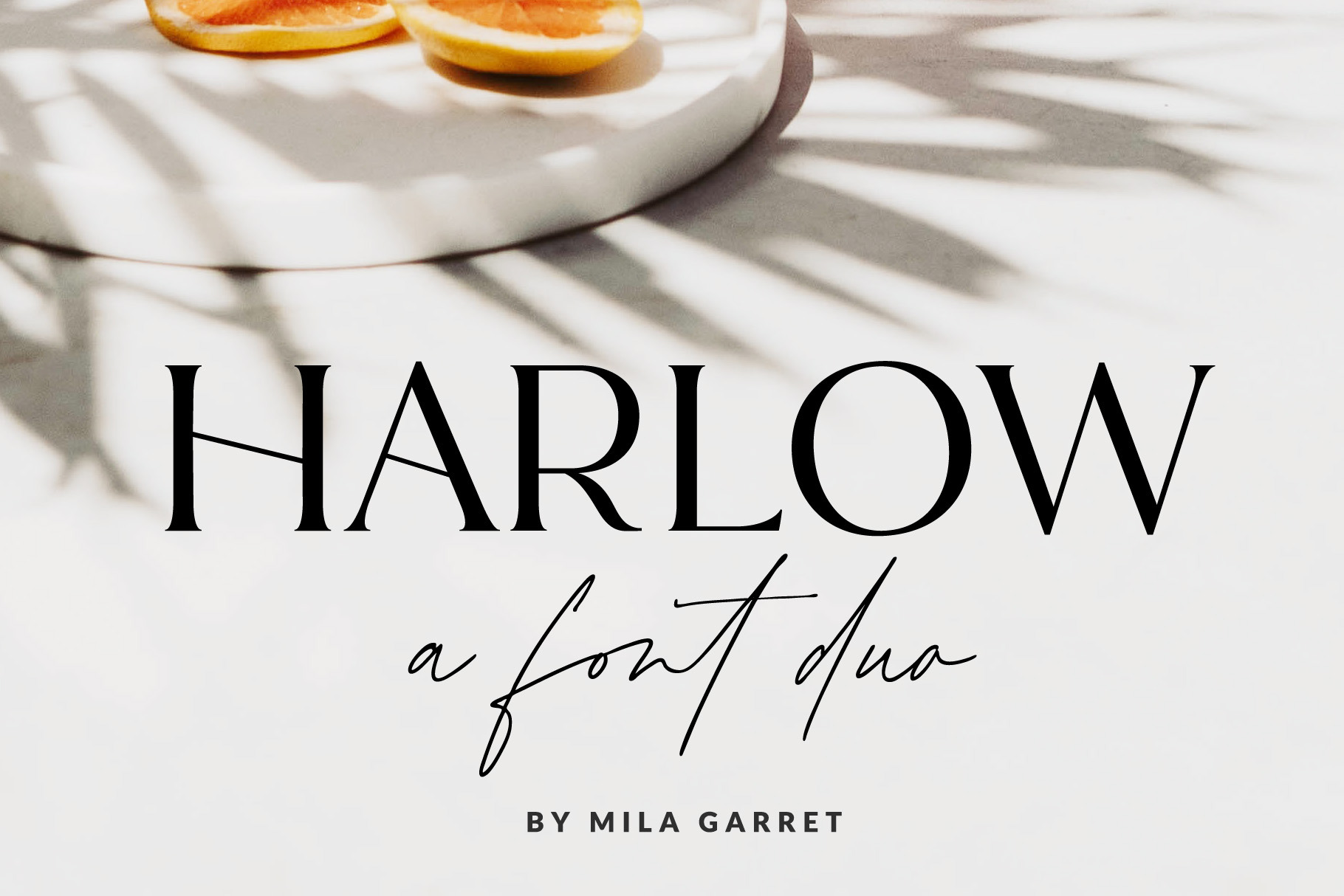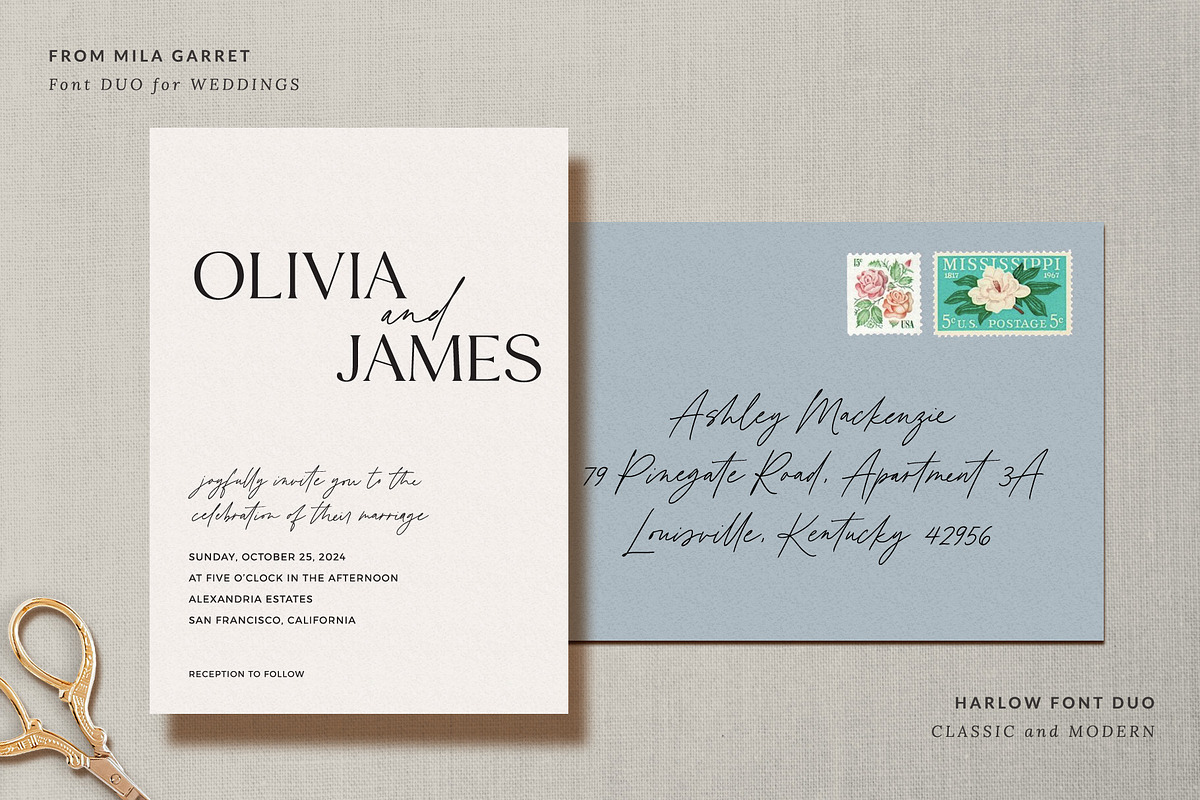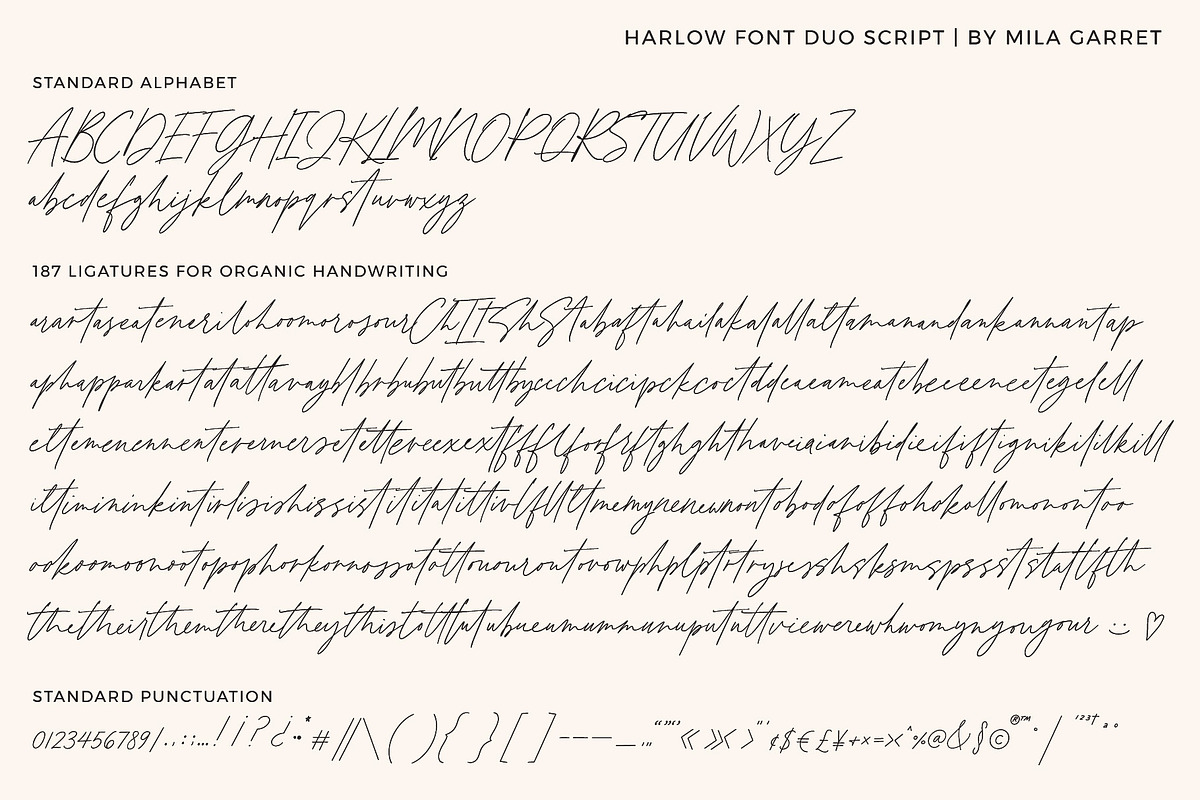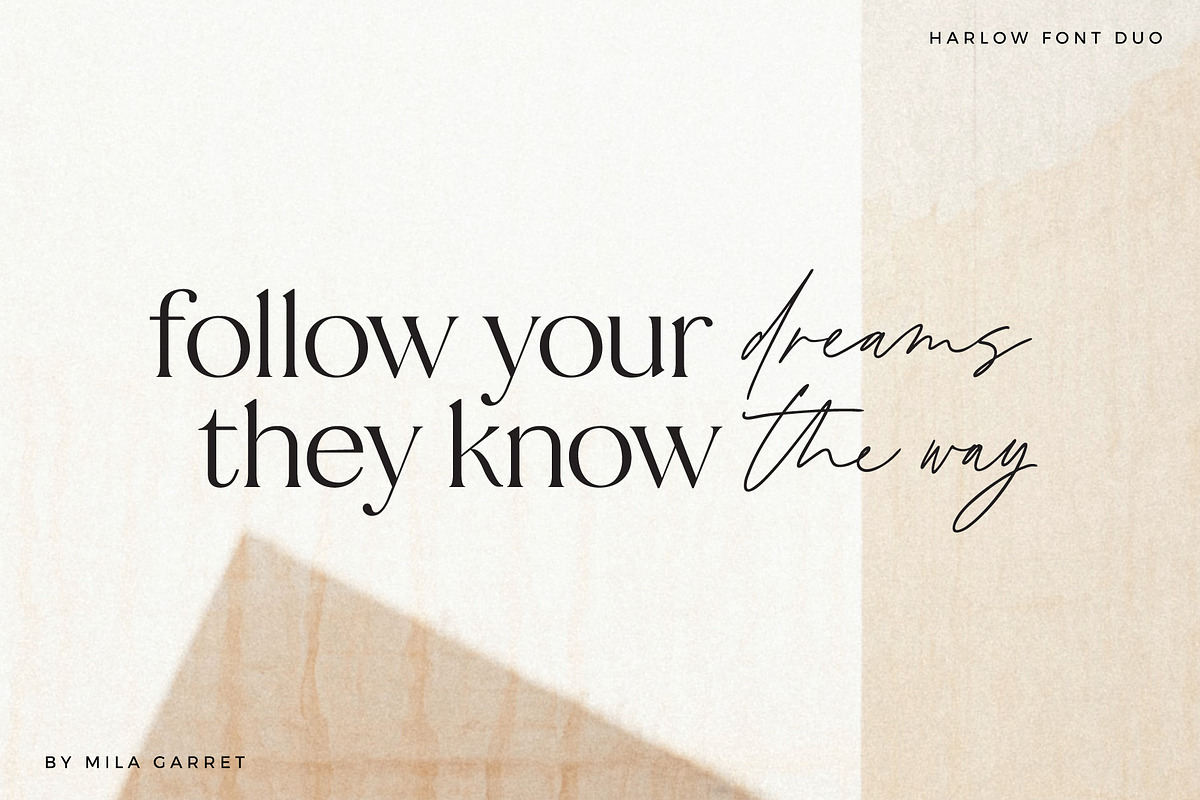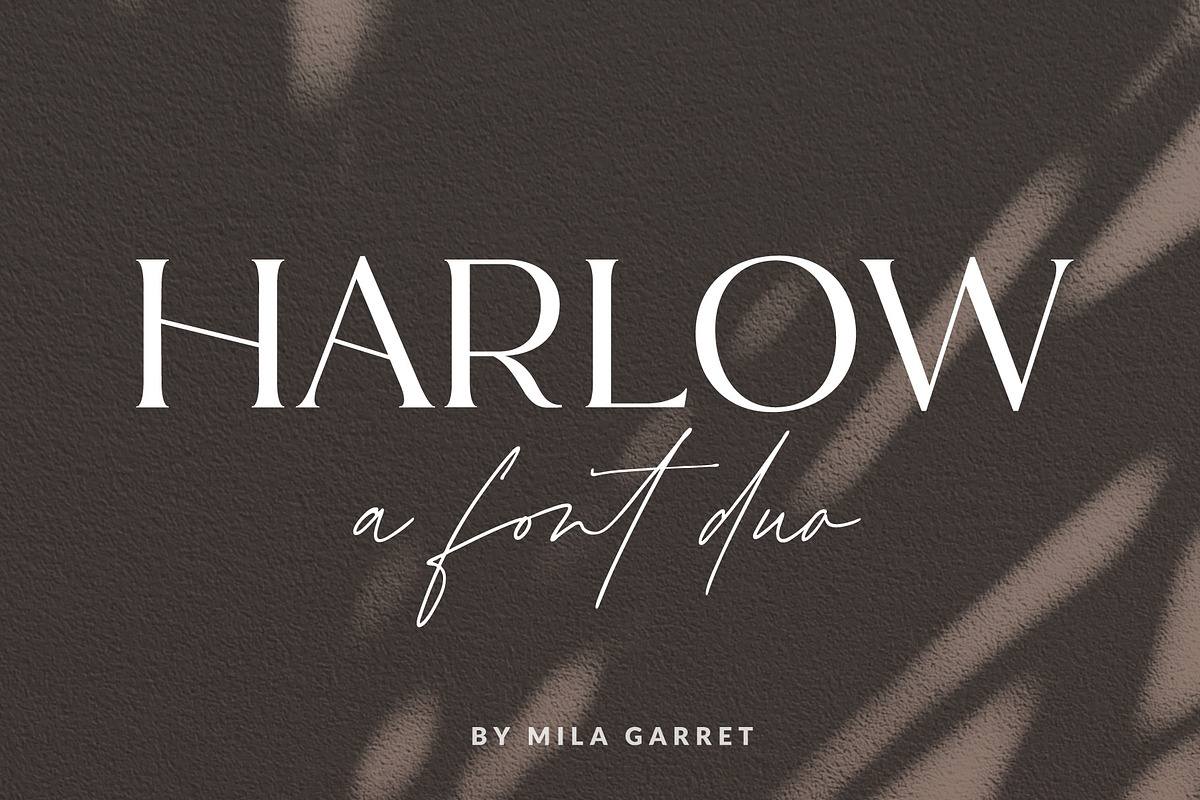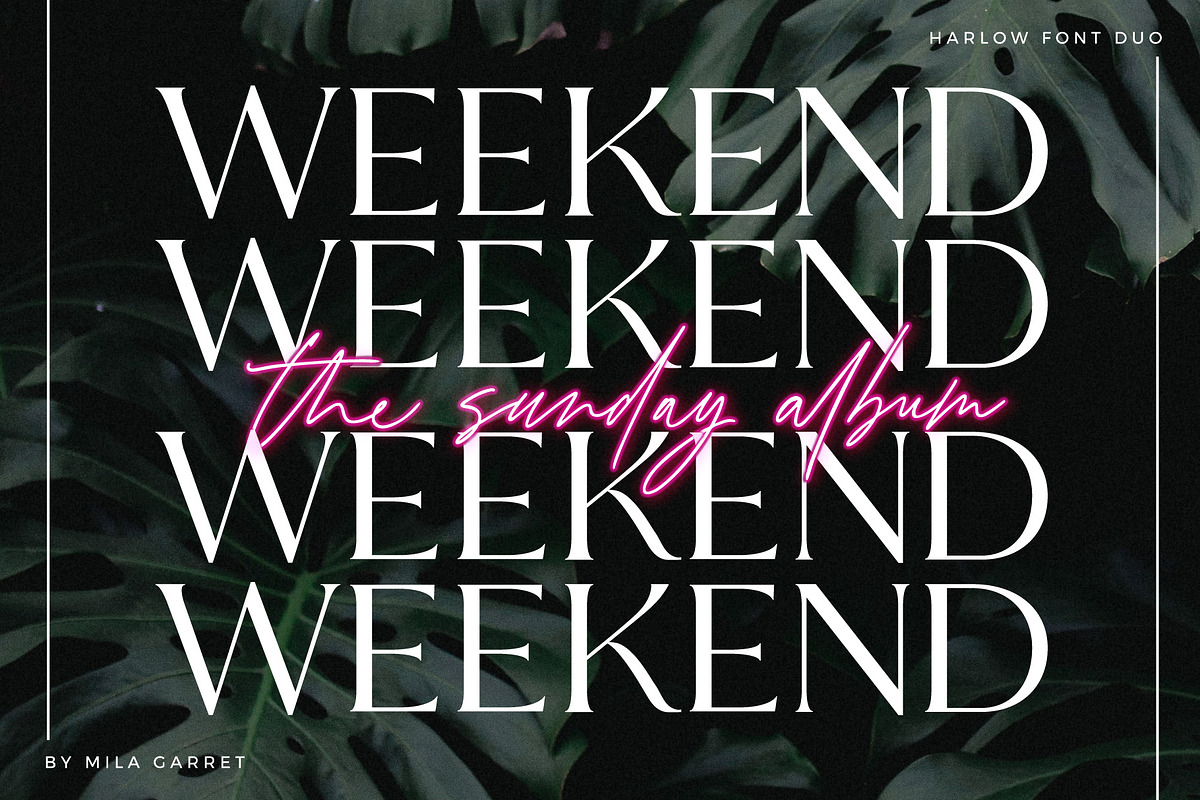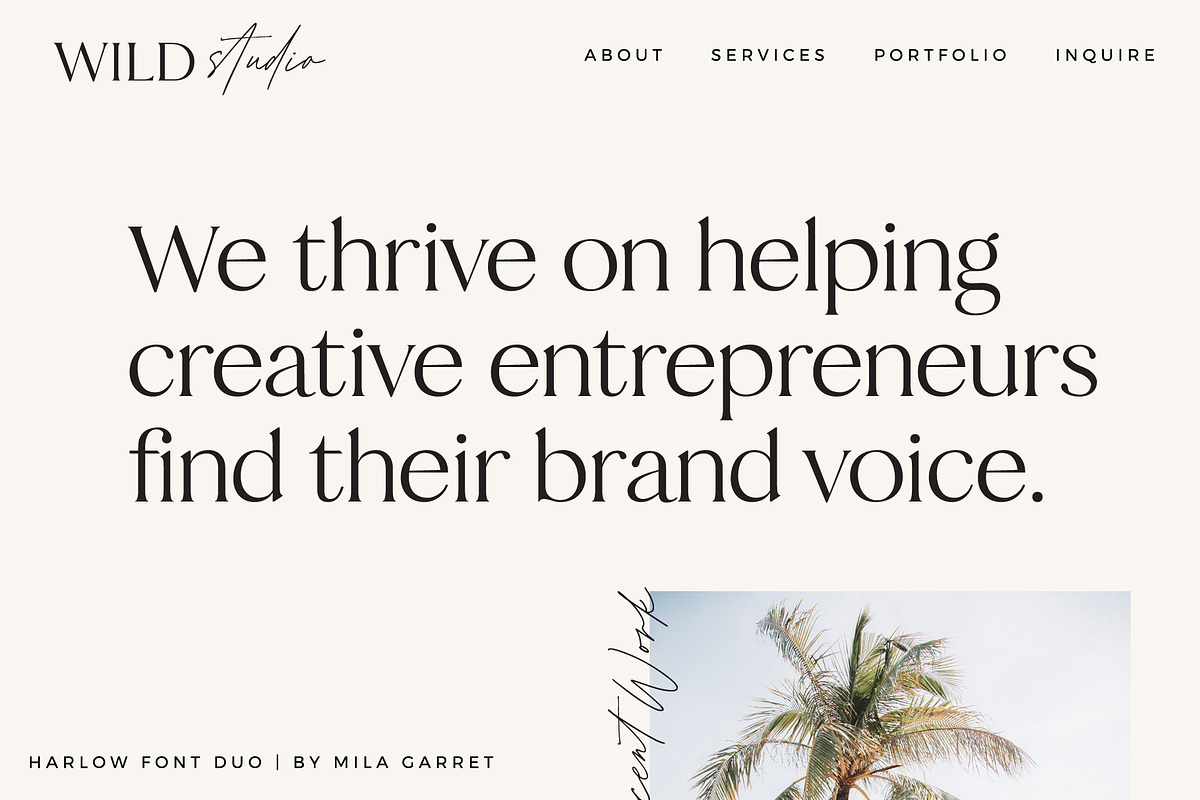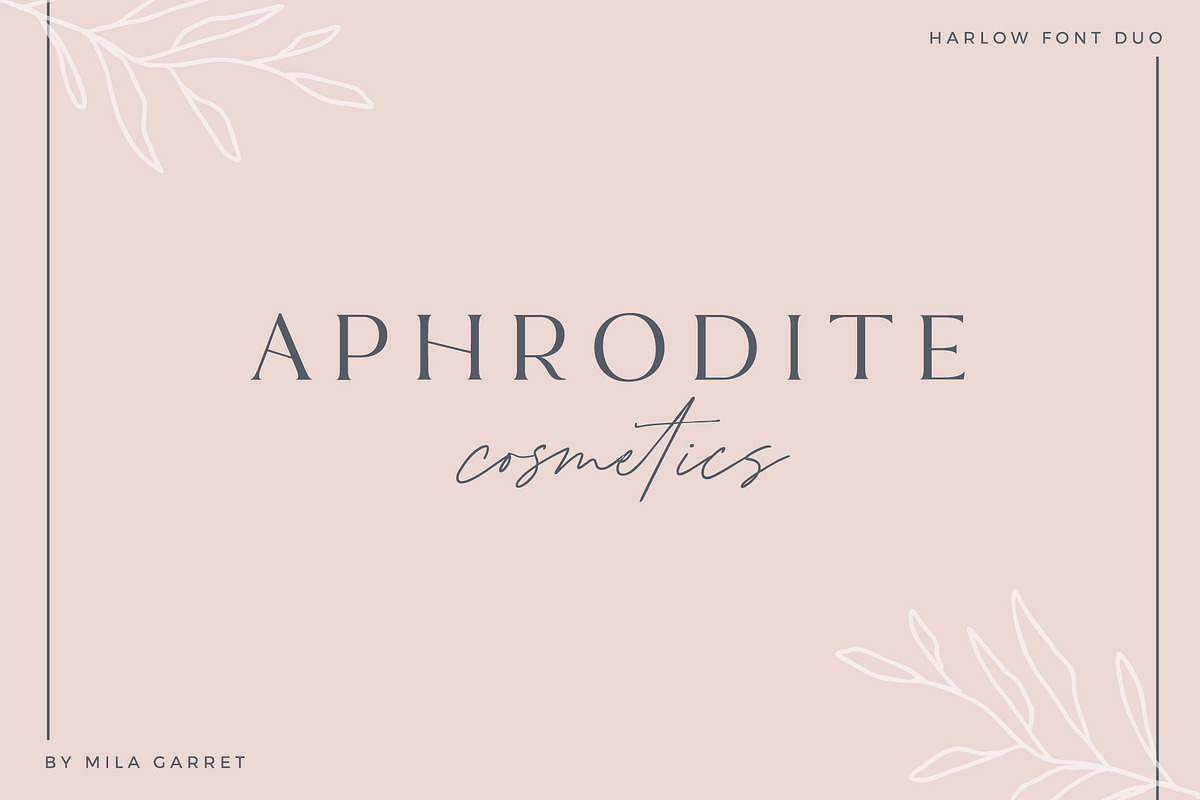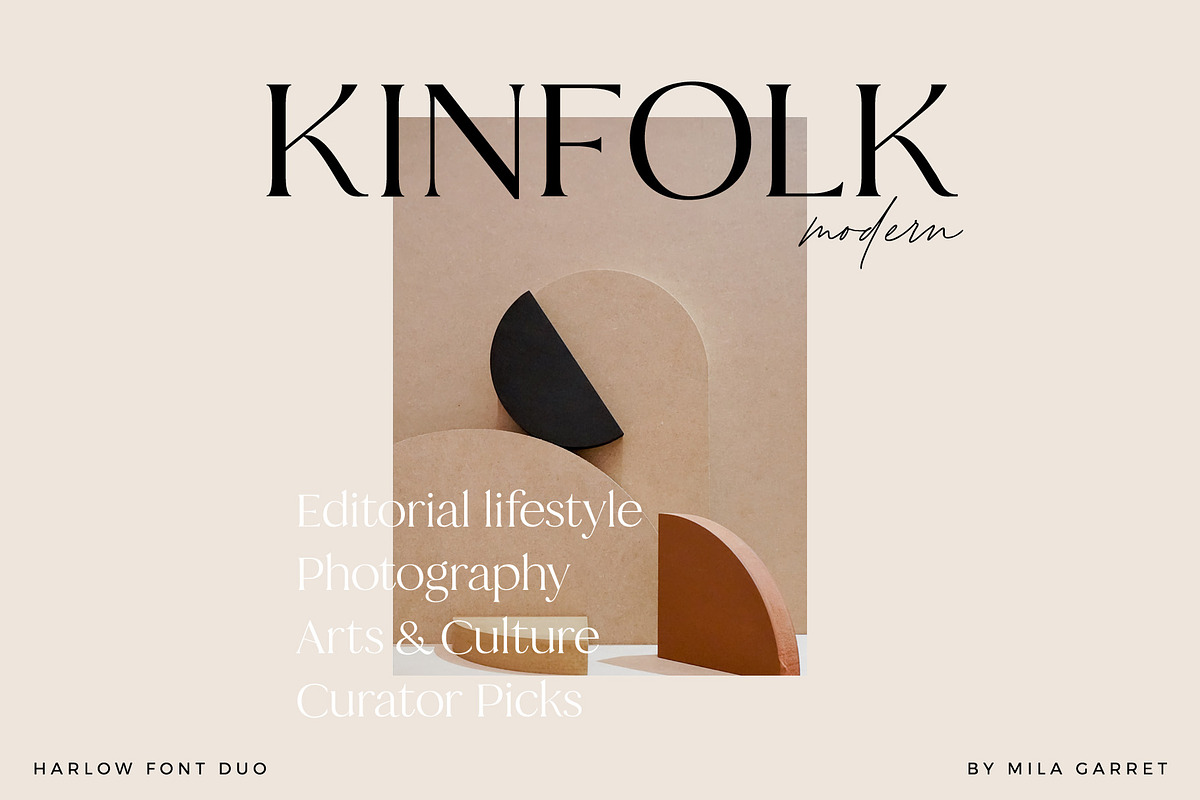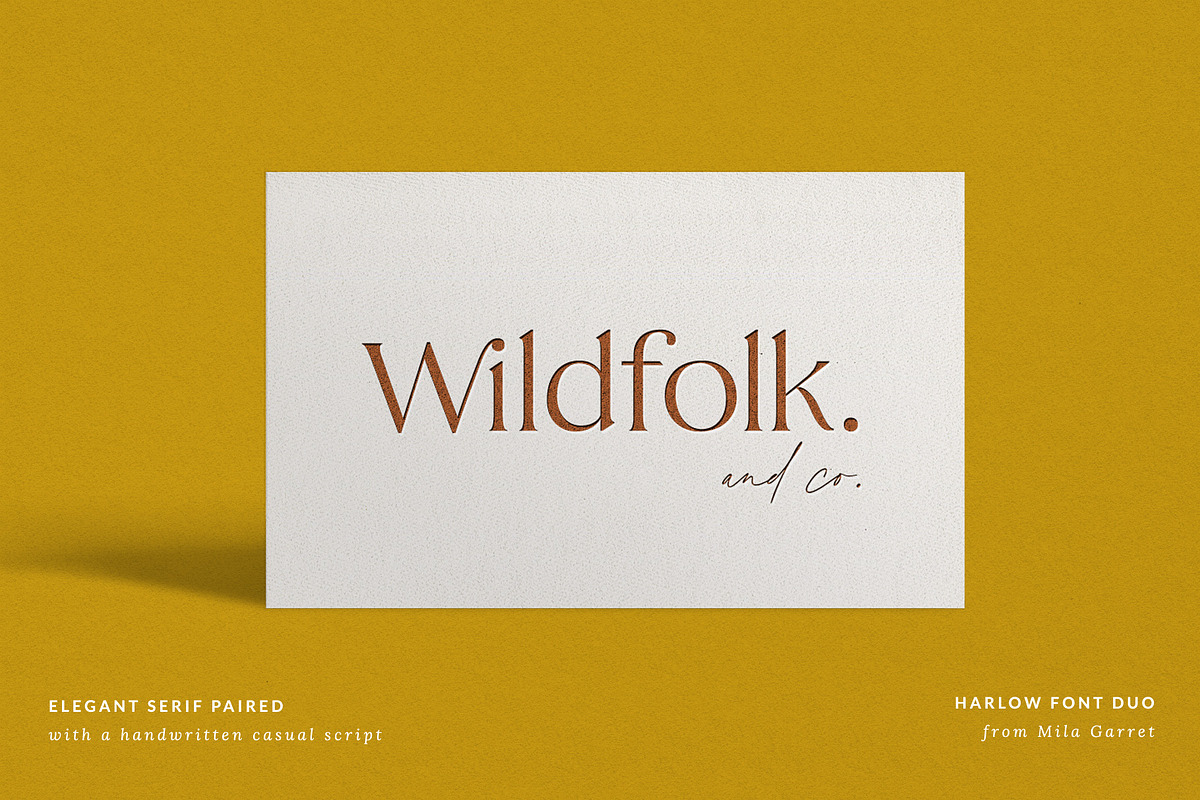
Harlow Serif Script Modern Font Duo
Introducing Harlow Font Duo: An elegant serif typeface paired with a casual handwritten script. With its modern and minimal look, Harlow Font Duo brings a luxurious and clean style to websites, modern logos, branding identity, social media quotes, wedding stationery, and whatever your heart dreams up!
Harlow Serif features a quirky capital A and H (with standard versions as alternates), and Harlow script has 187 ligatures for a custom handwritten look.
Harlow Font Duo Features
- Full Set of standard alphabet and punctuation
- 187 Ligatures in Harlow Duo Script
- Select alternates and ligatures in Harlow Duo Serif
- "Plain" Version of the serif with a standard A and H (Straight crossbar)
- Multilingual Characters (ÁÂÄÀÅÃÆÇÉÊËÈÍÎÏÌÑÓÔÖÒØÕŒÚÛÜÙÝŸ áâäàåãæçéêëèíîïìñóôöòøõœßúûüùýÿŠšž€£¥ªº)